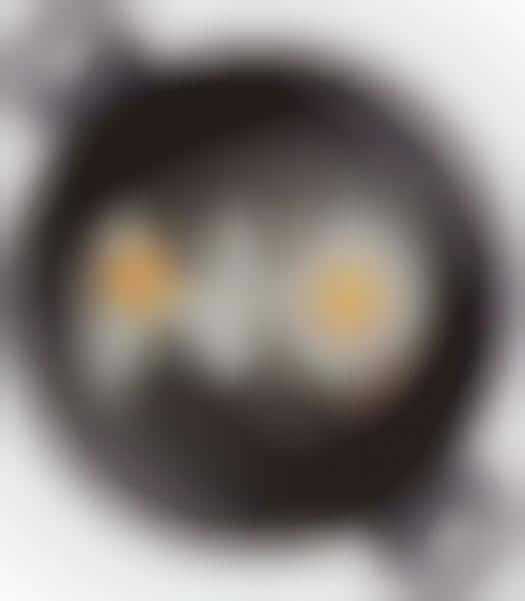
The art of typography has really taken off, and with the creations that 'Handmade Font' studio is pumping out, it continues to evolve. The fried egg font that the brilliant studio has recently created is a perfect example of how creative you can be with typography.
The font took roughly three hours to complete and needed over 1,000 eggs, ten pans and one bottle of oil. Not only was it a time consuming task, but there was also five burned fingers -- never let anyone tell you typography is easy. 'Handmade Font' used the perfectly created sunny-side-up eggs to shape the different letters of the alphabet.
As each art form evolves, incredibly creative projects like this one will continue to be unveiled. The best thing about it is that each new project will inspire more.
Fried Egg Typography
'Handmade Font' Studio's Fried Egg Font is a Brilliant Example of Typography